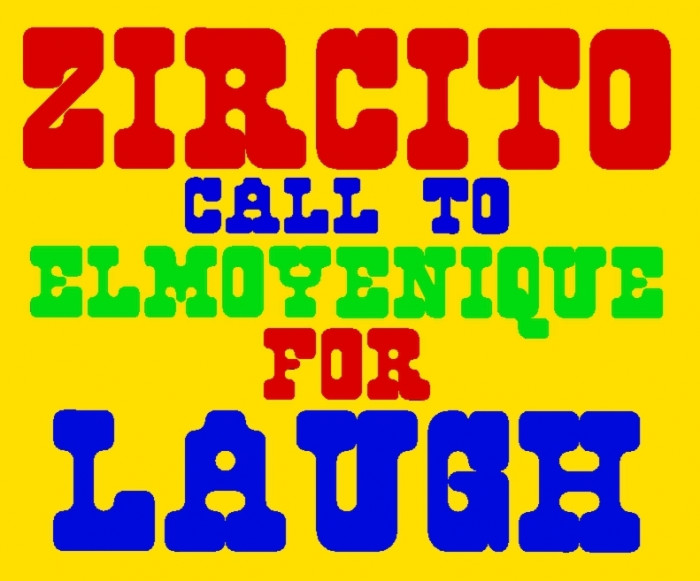
zonora eYe/FS
I really like this ... it's like the results of a mating between a Western and a Computer :) 10/10
Another Woodtype
Nice work Elmo
Nice wood type almost melted in the desert heat. From simple bricks you've built very natural looking letters turning the limitations of FS into a virtue. The E,N,S,X are cases in point. The special characters are also great. TP well deserved. 10/10